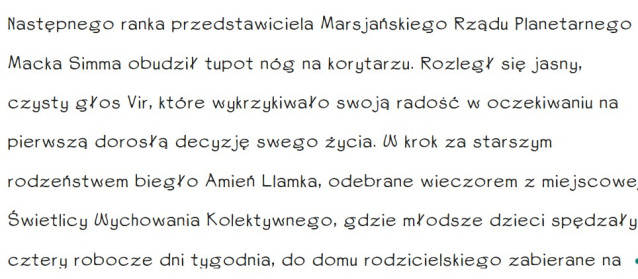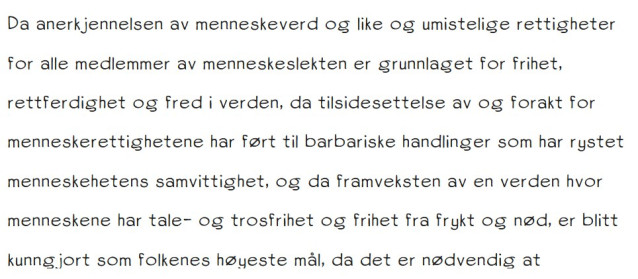
Flapper handwritten font for zines, postcards, and stuff. Contains basic Latin glyphs, as well as some Eastern and Norther European.Northern
Flapper Font